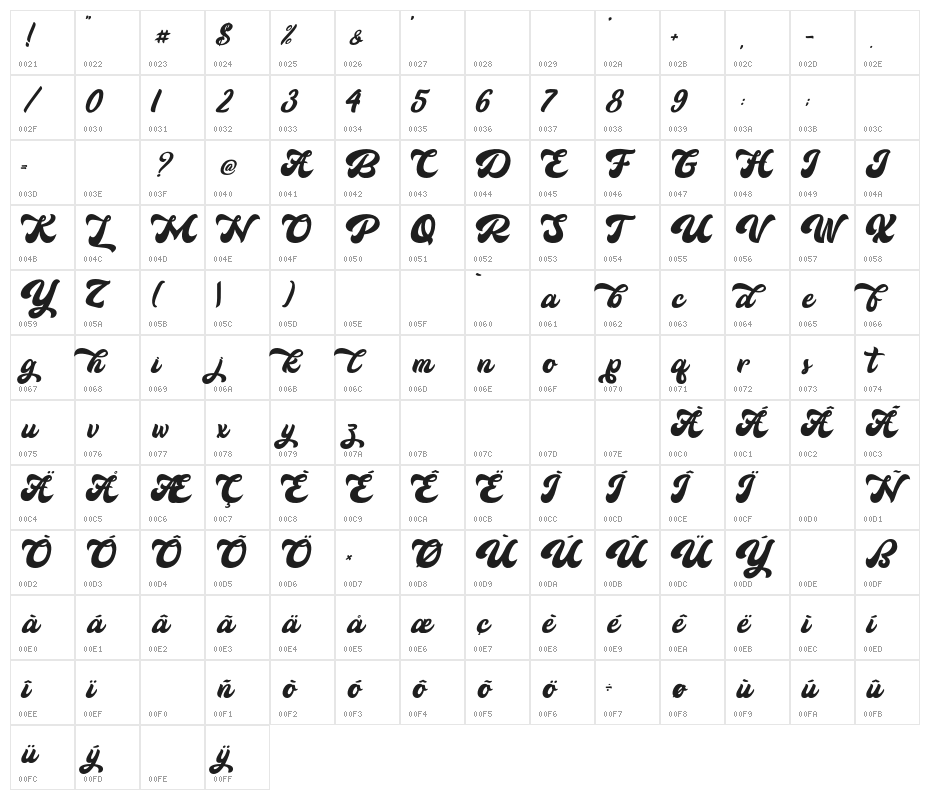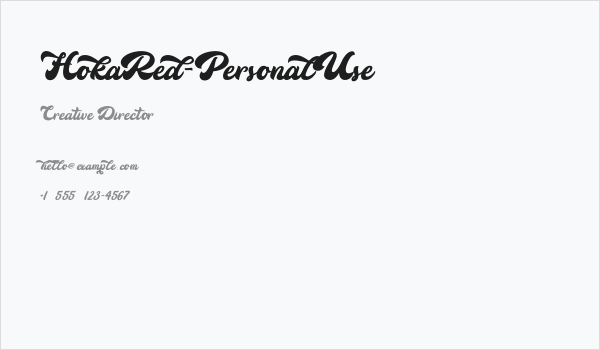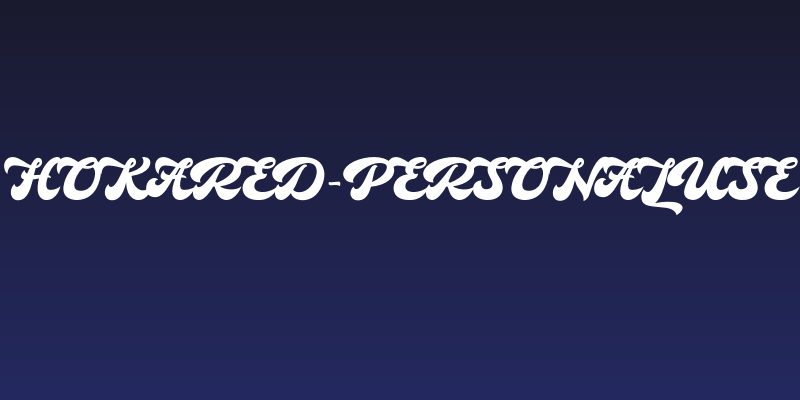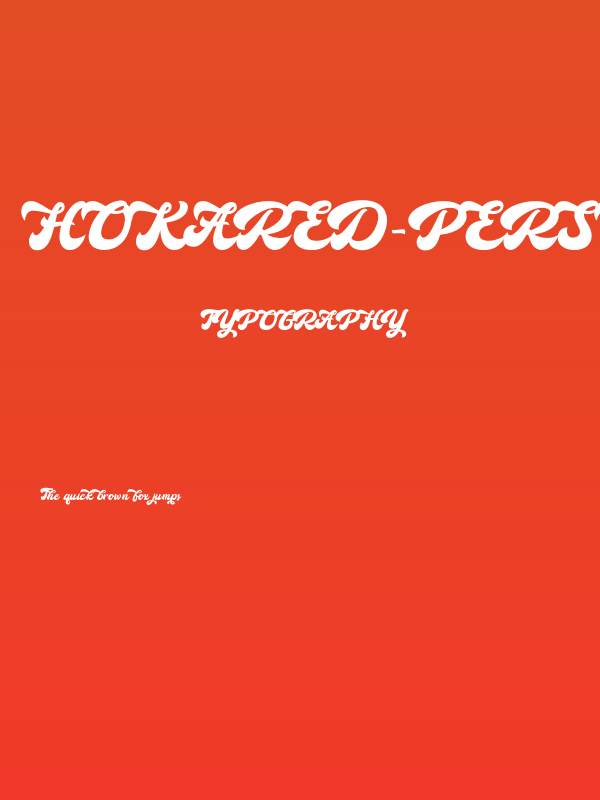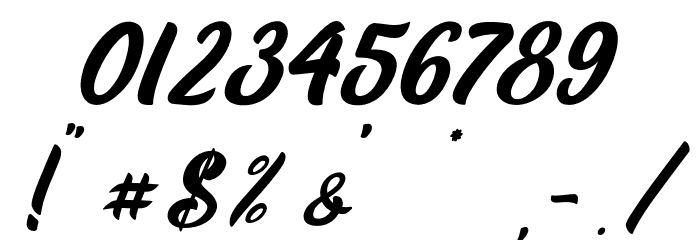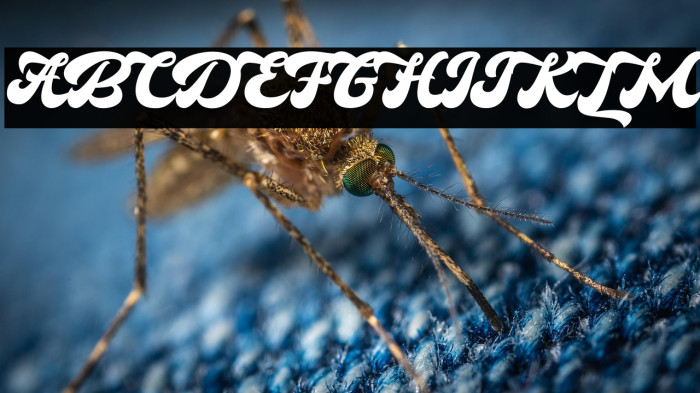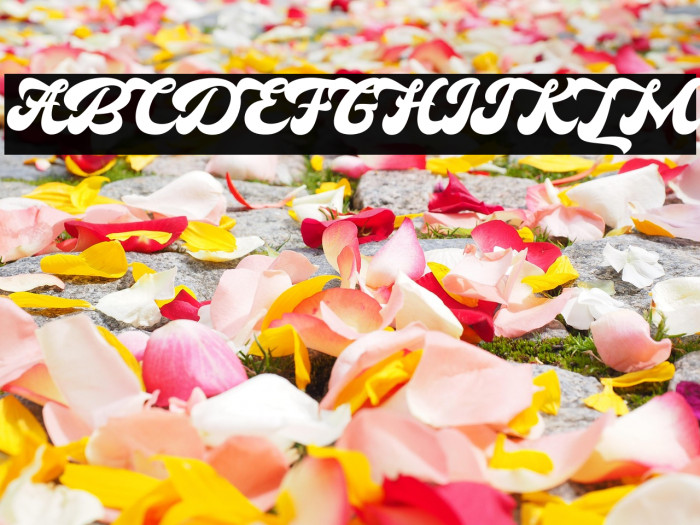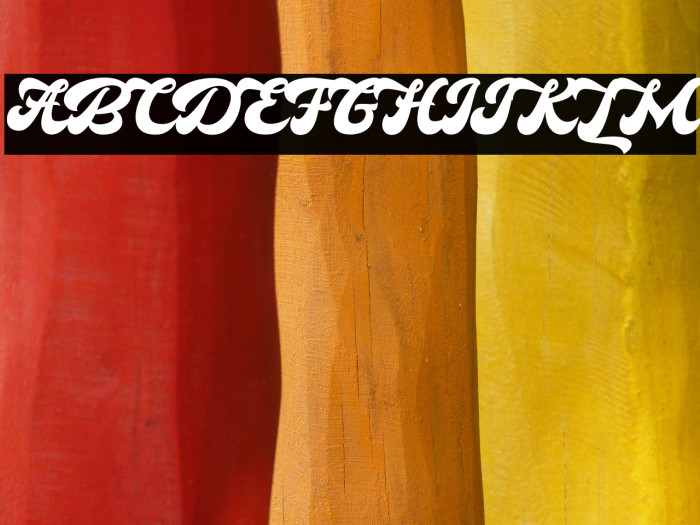
HokaRed-PersonalUse Font
HokaRed-PersonalUse Description
This font features a bold, cursive style with a strong emphasis on fluidity and elegance. The characters are interconnected, creating a seamless flow that is both dynamic and visually appealing. The uppercase letters are particularly ornate, with exaggerated loops and swirls that add a touch of sophistication. The lowercase letters maintain a consistent style, complementing the uppercase with their smooth curves and balanced proportions. Numbers and special characters are designed to match the overall aesthetic, ensuring a cohesive look across all text. The font's bold weight and high contrast between thick and thin strokes make it stand out, ideal for creating eye-catching designs.
| Proposed Projects | Ideal for wedding invitations, branding, logos, and decorative headlines. |